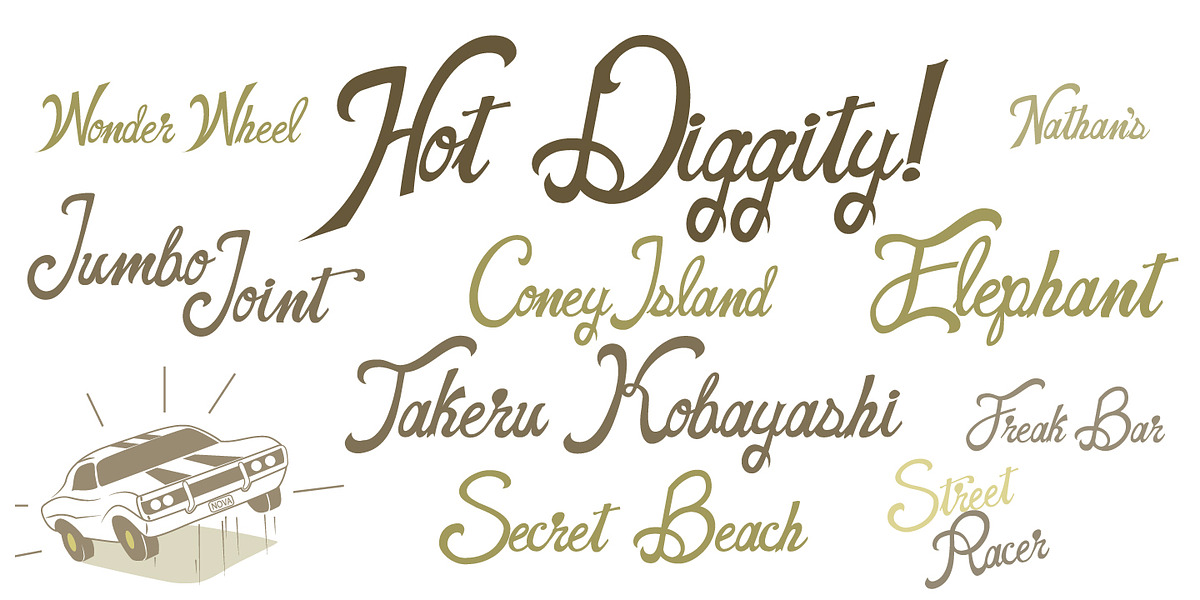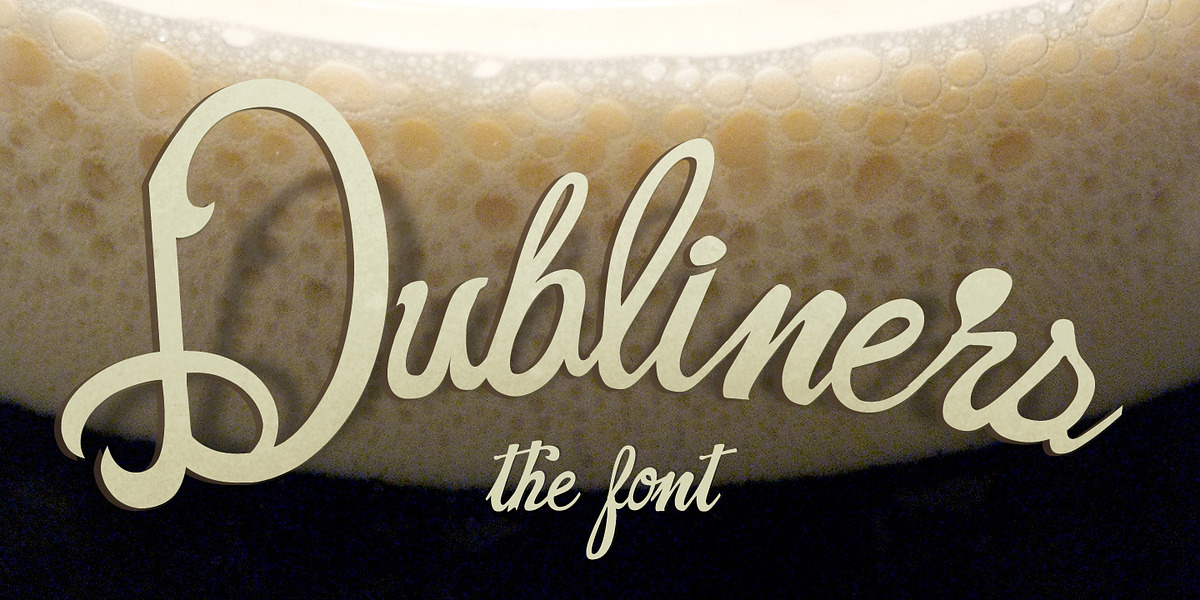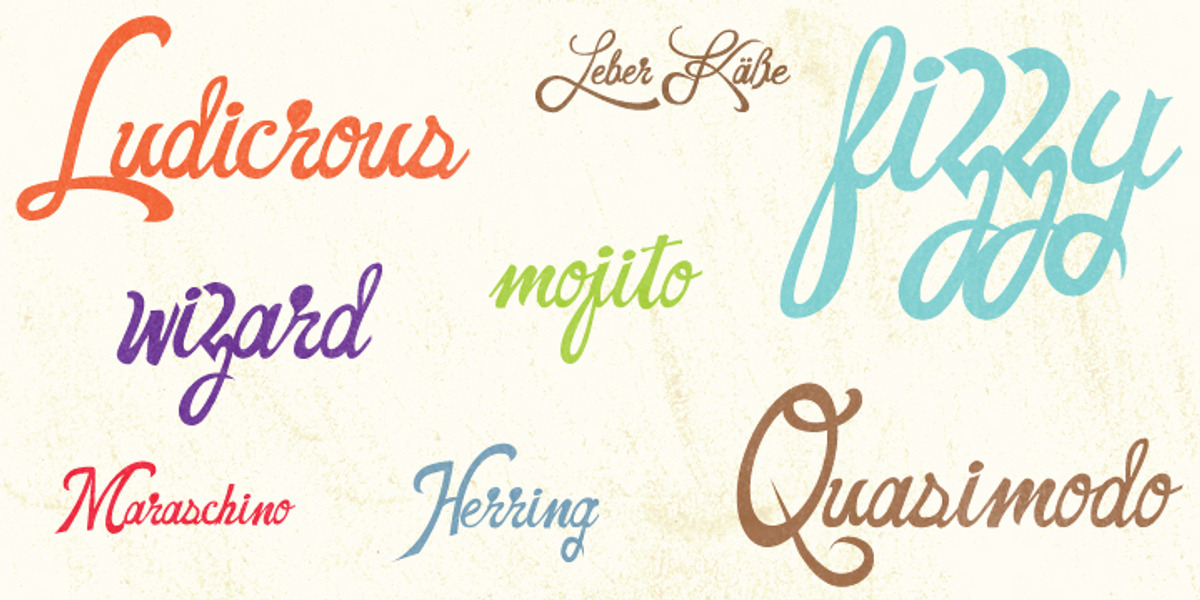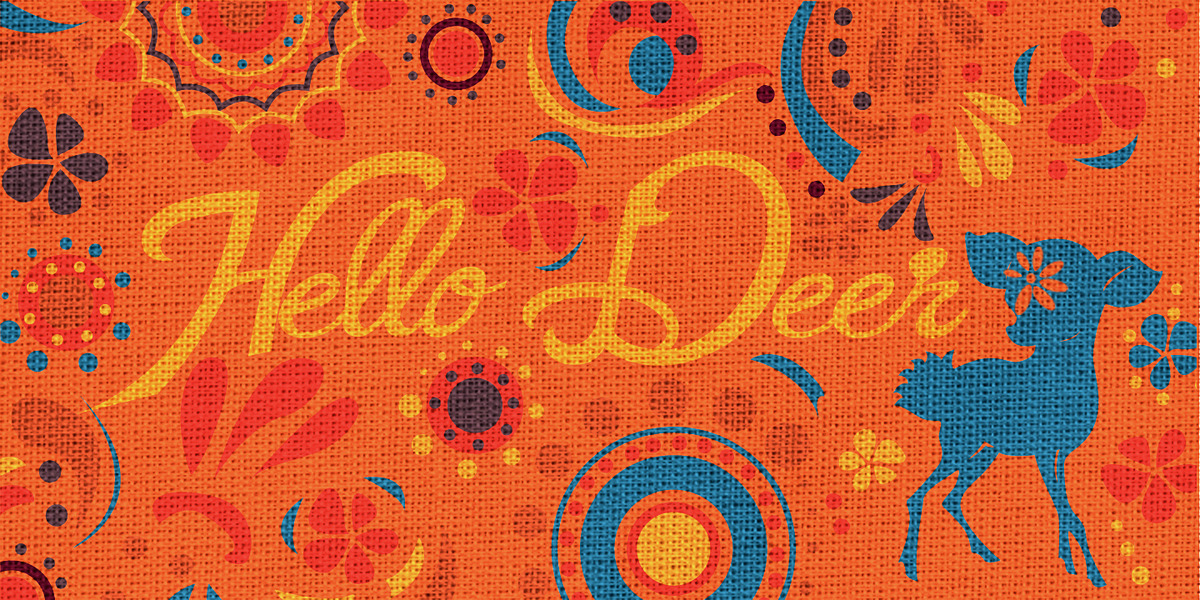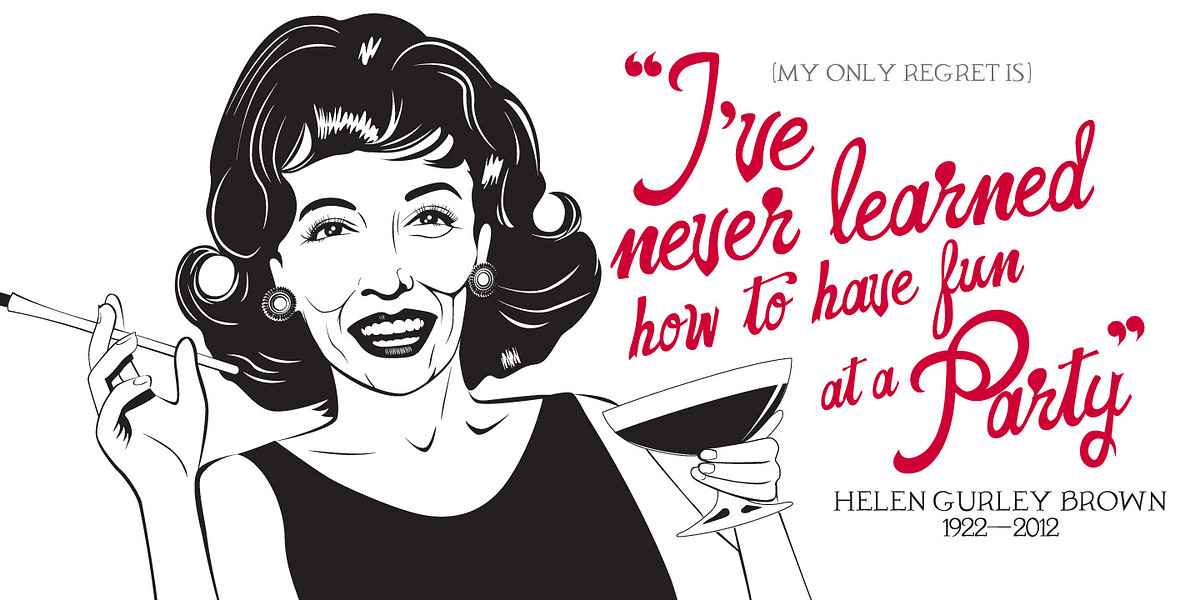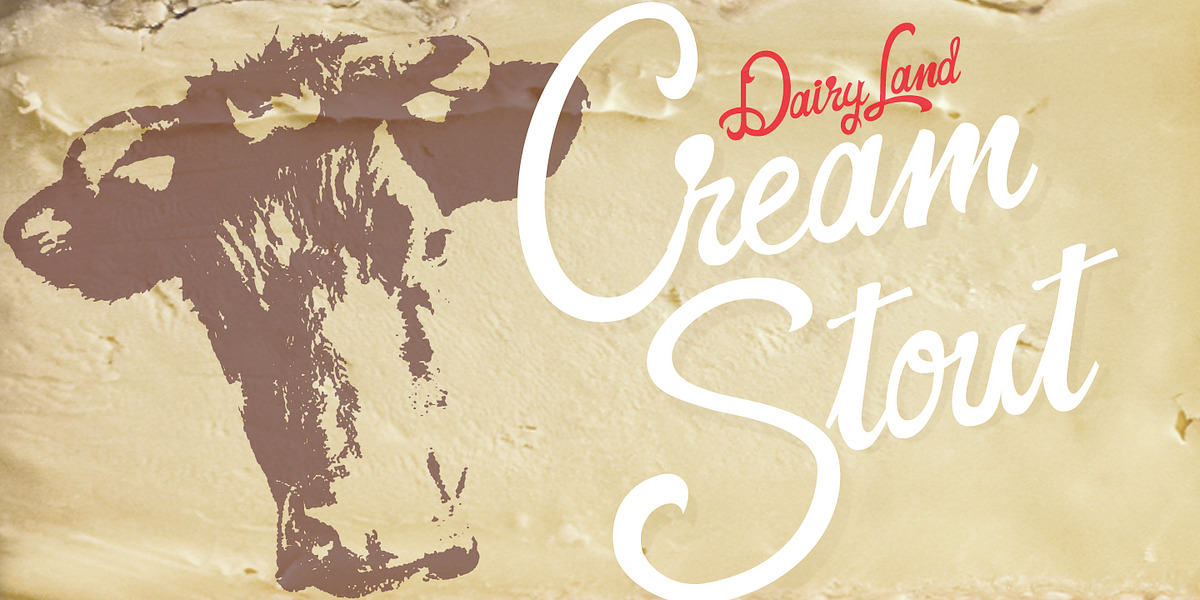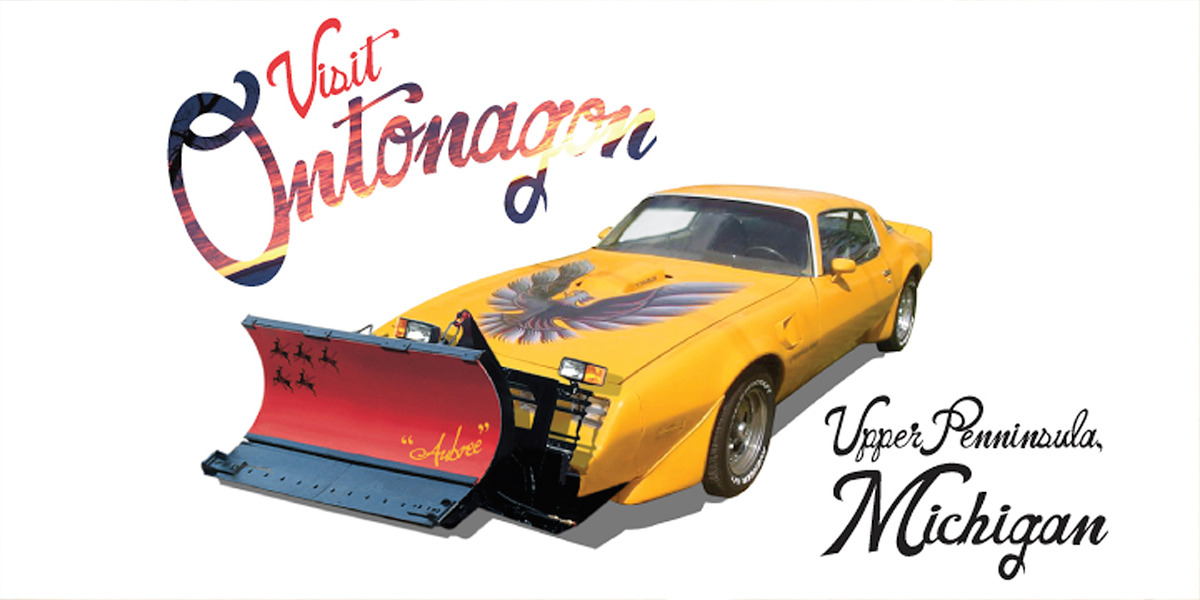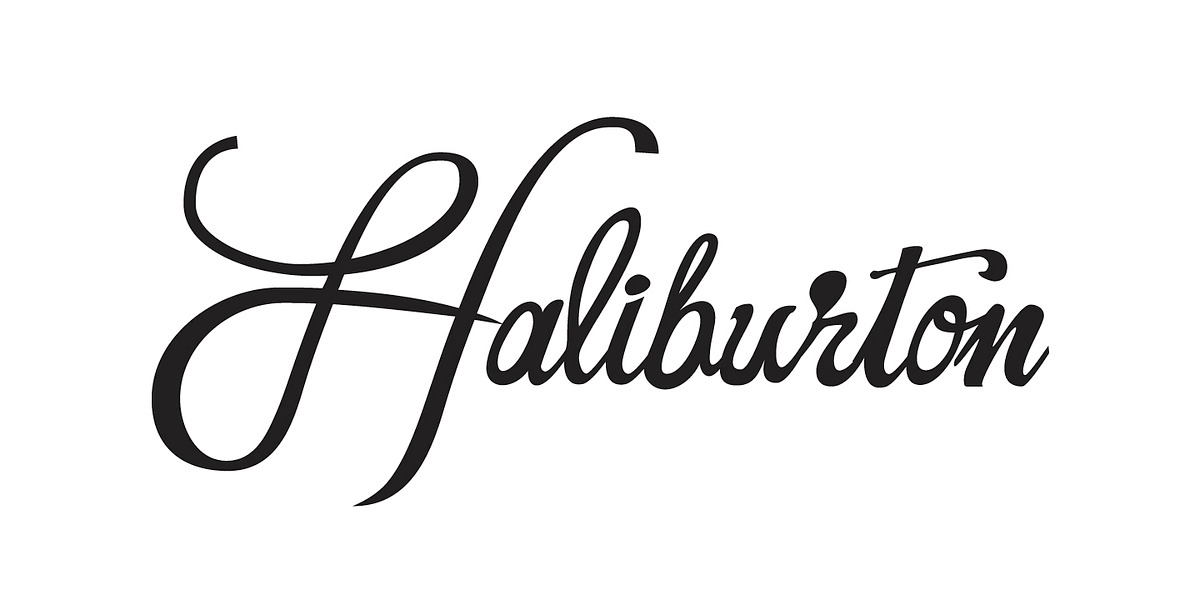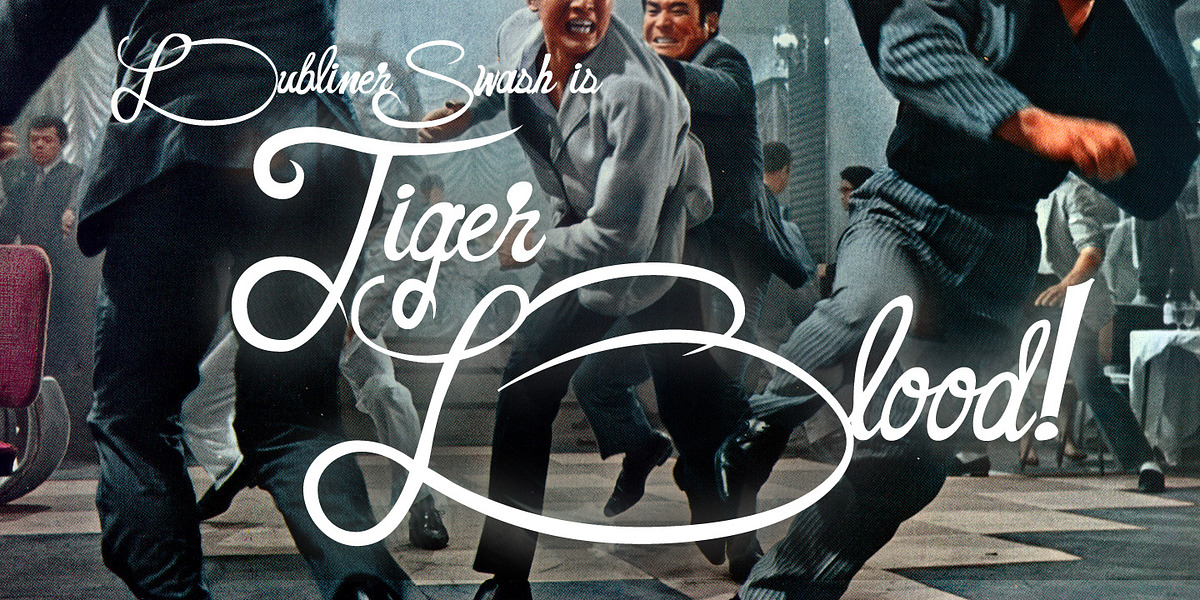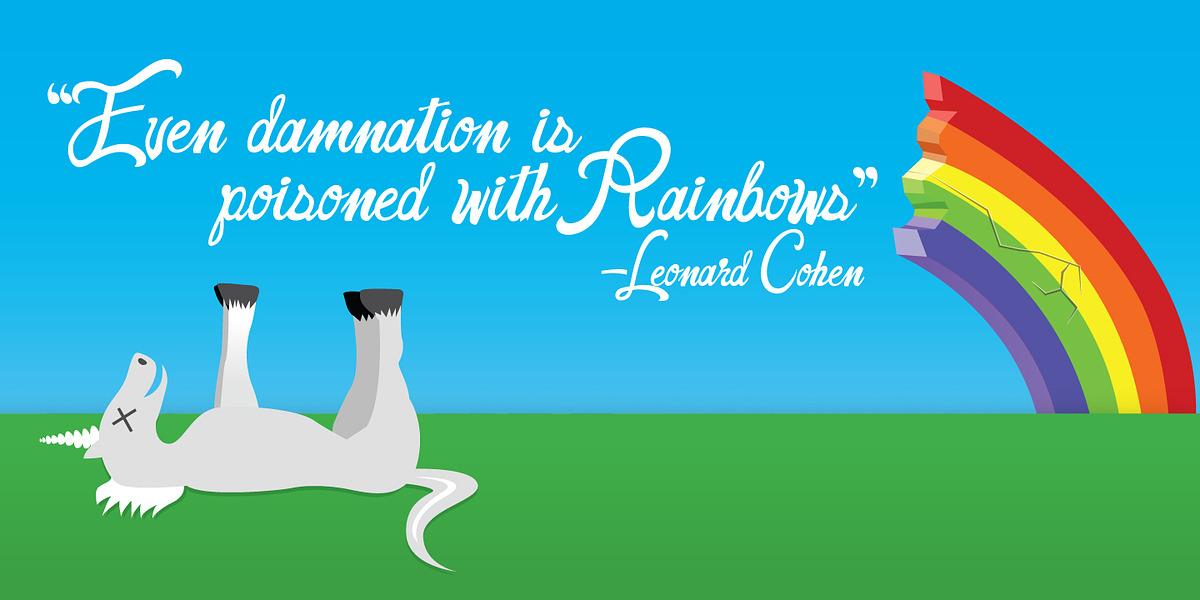
Dubliners
Dubliners is a hand-drawn script font characterized by its casual and playful style. It features prominent swashes on the capital letters, giving it a distinctive and elegant appearance. The font includes support for a wide range of Western keyboard layouts, making it suitable for international use.